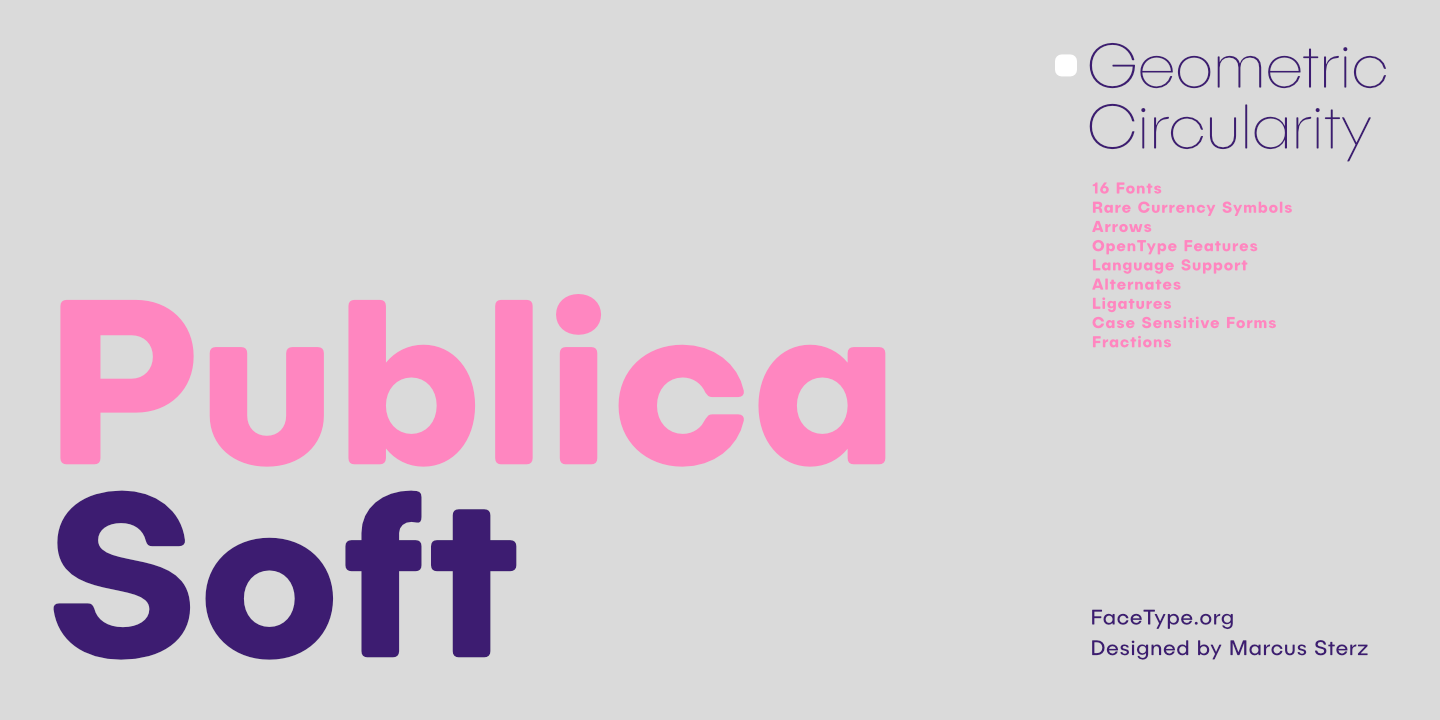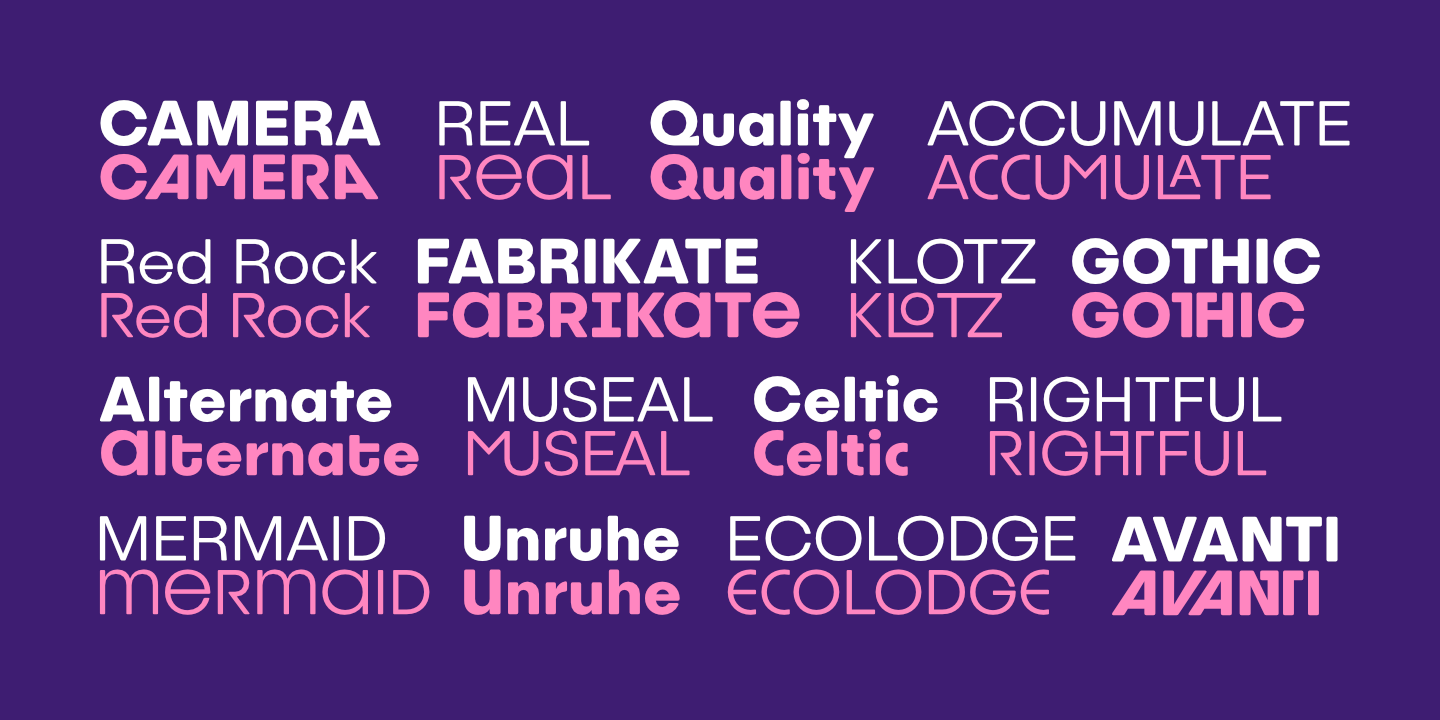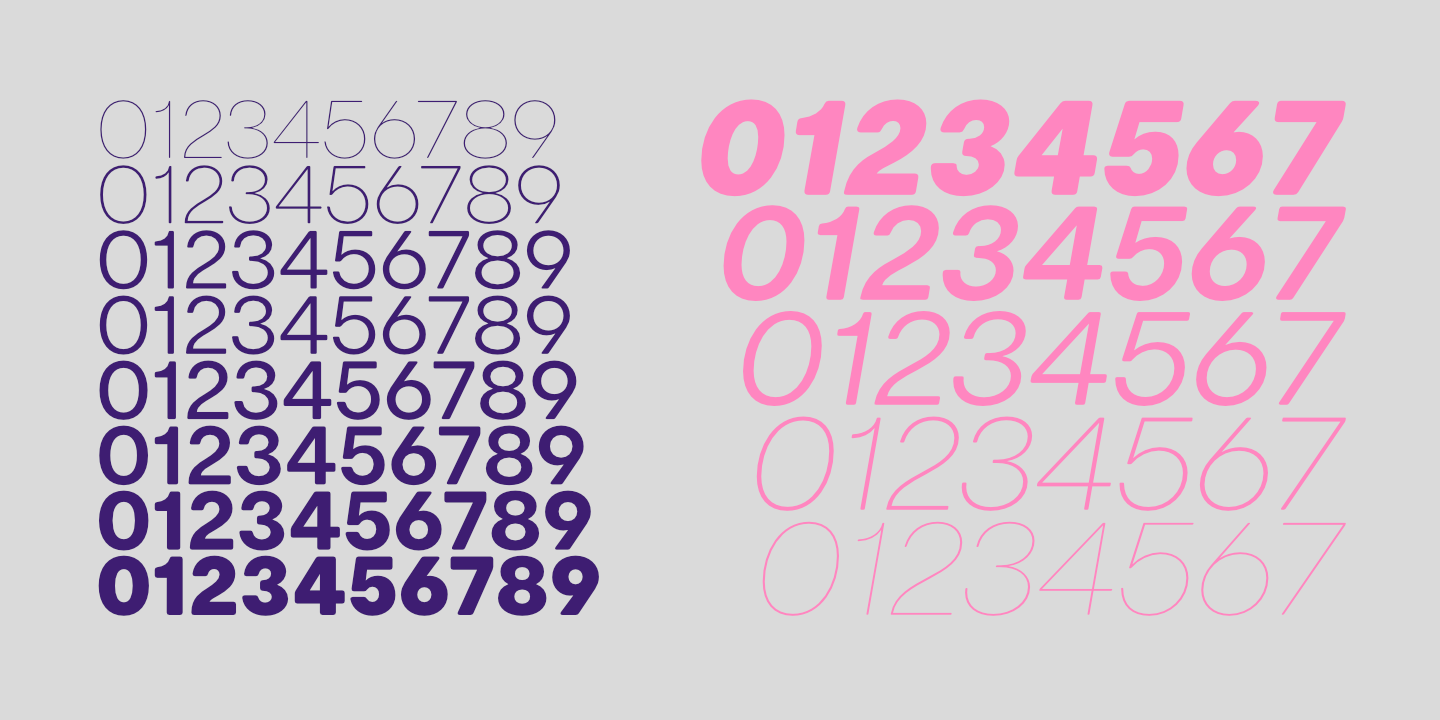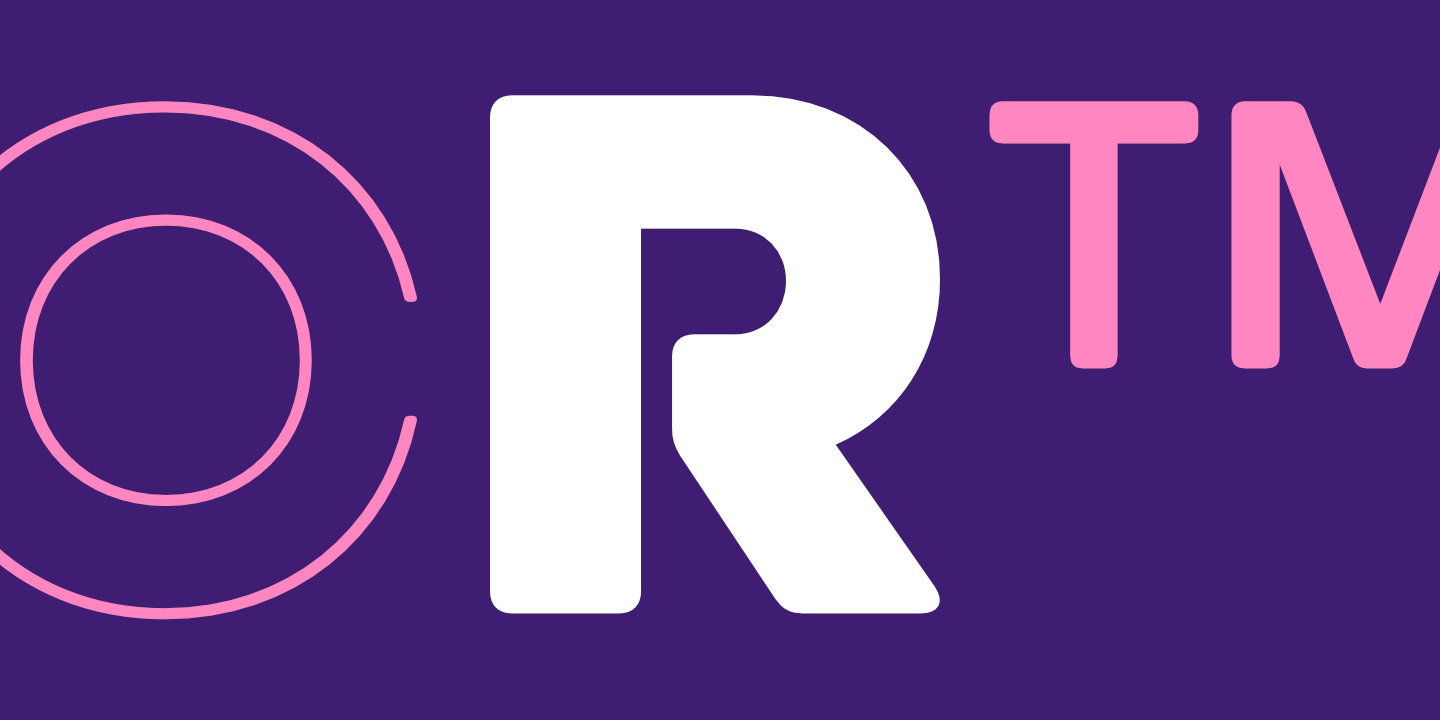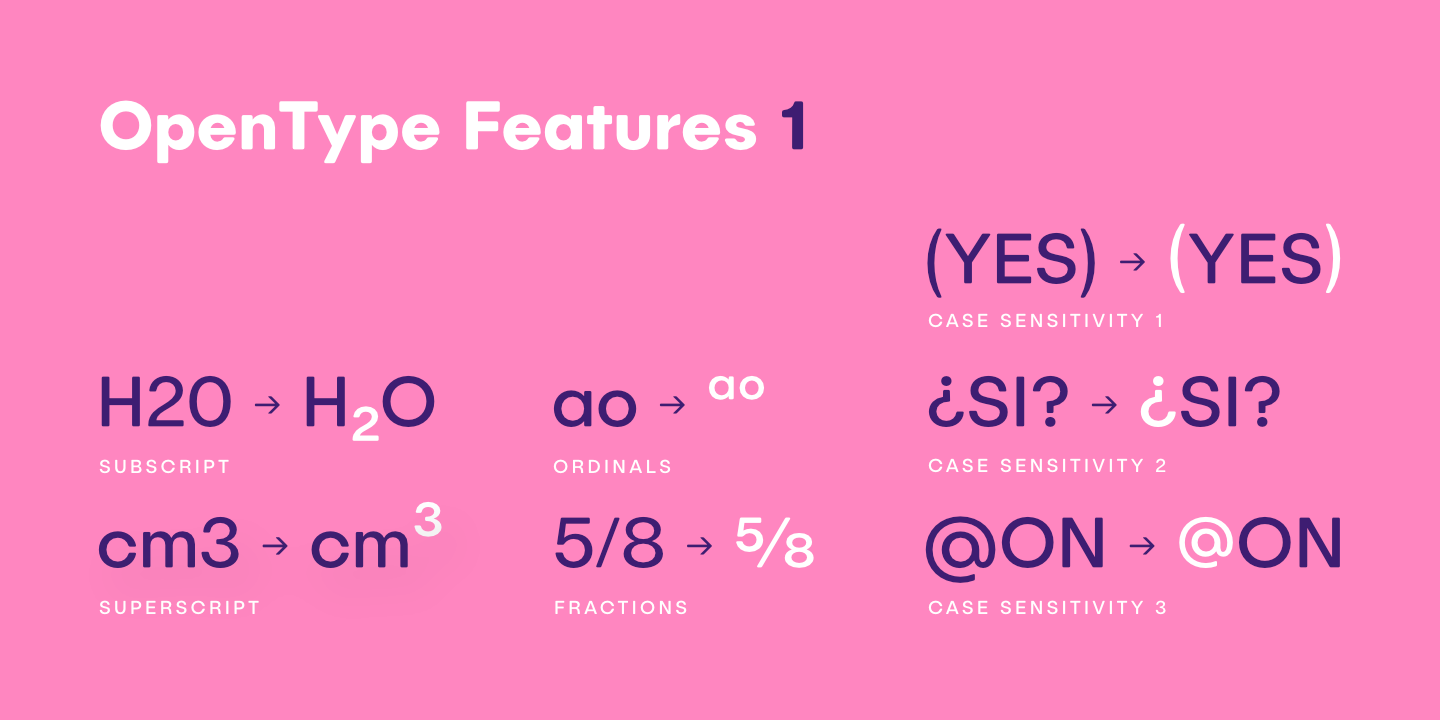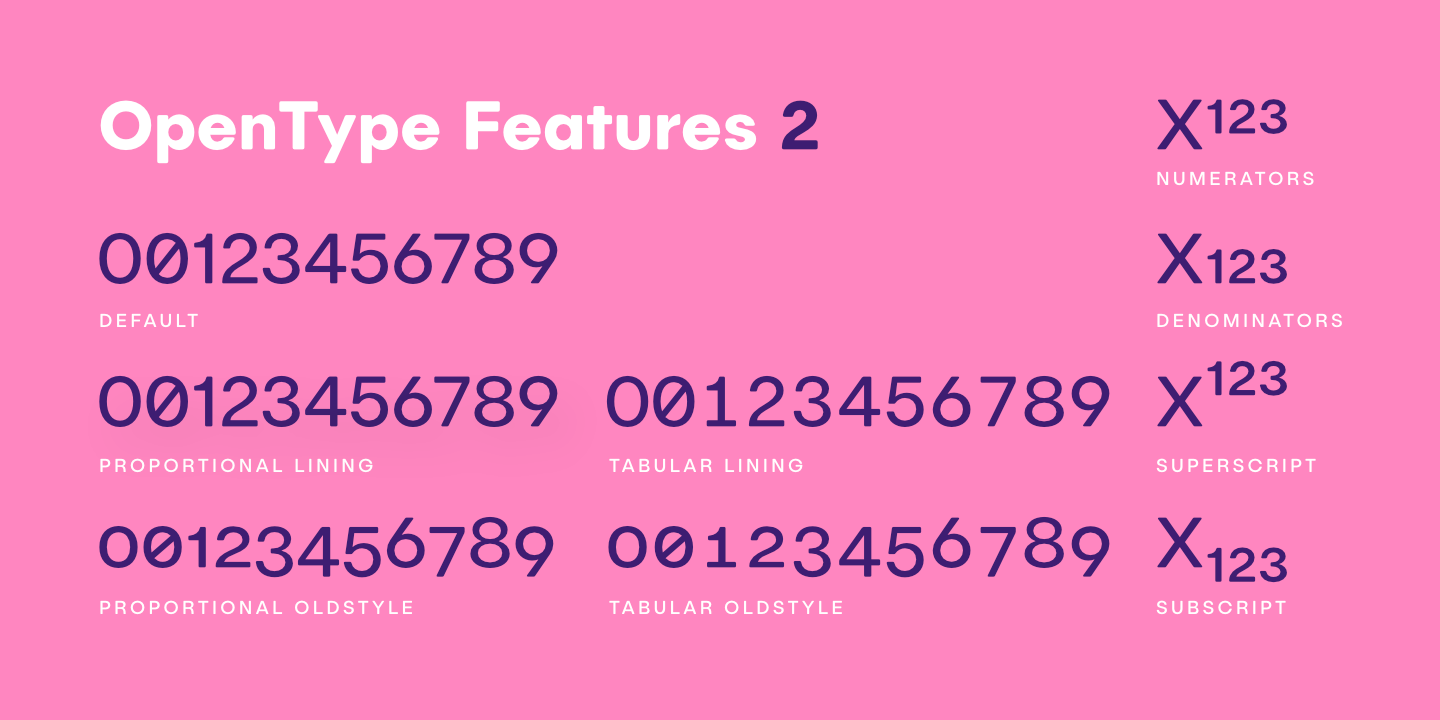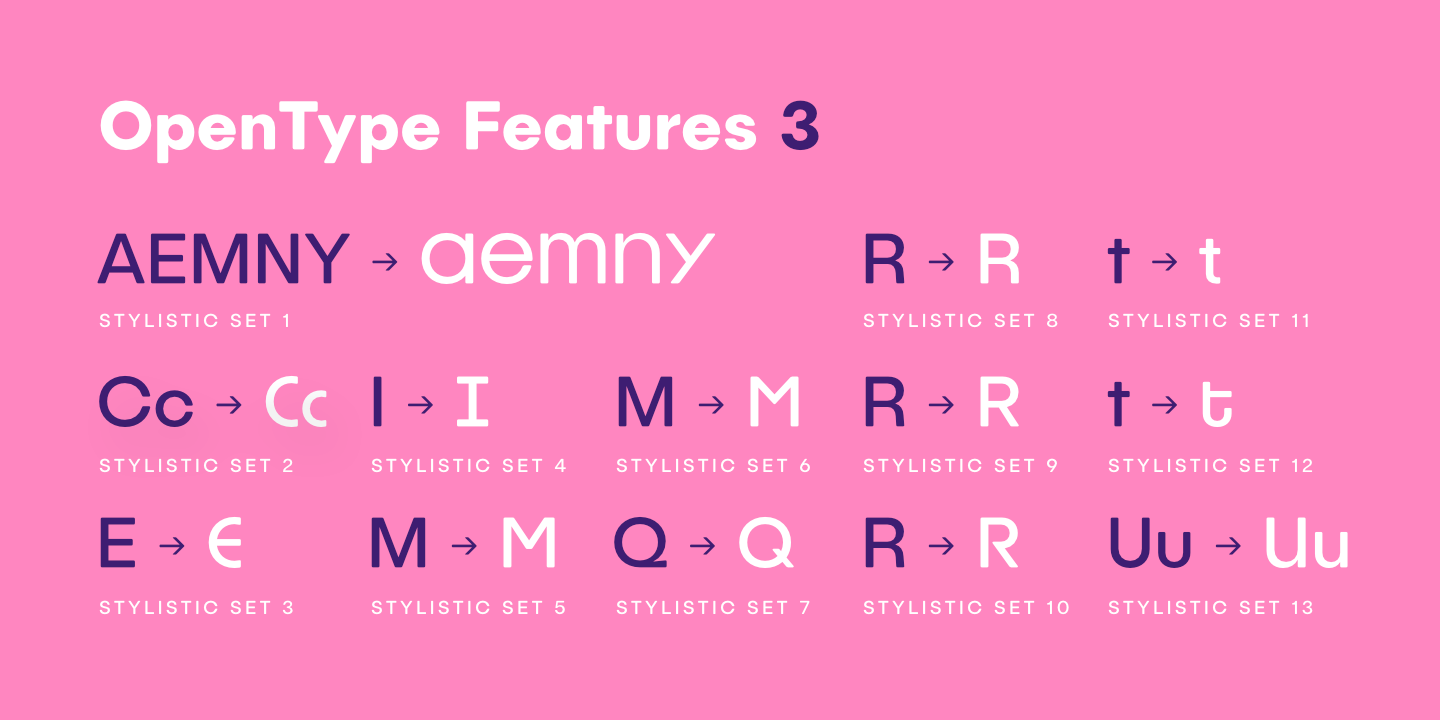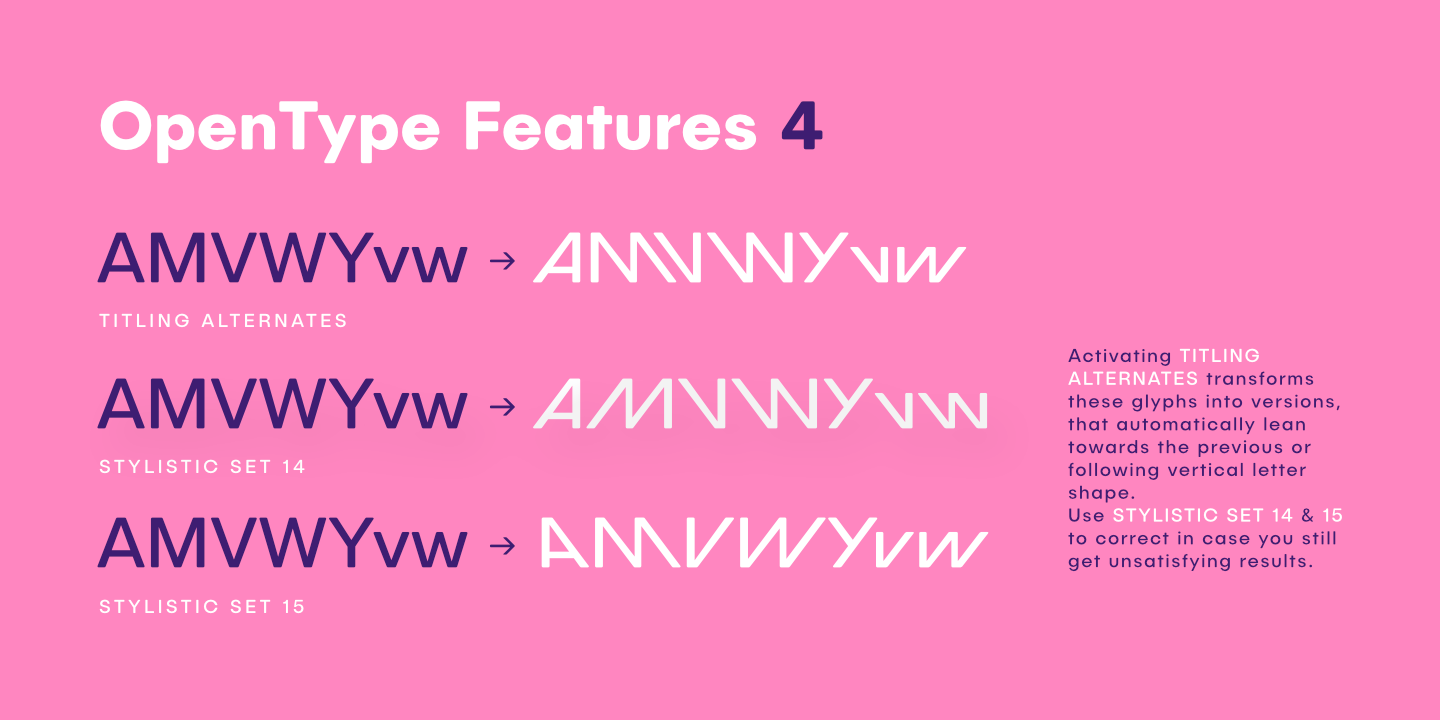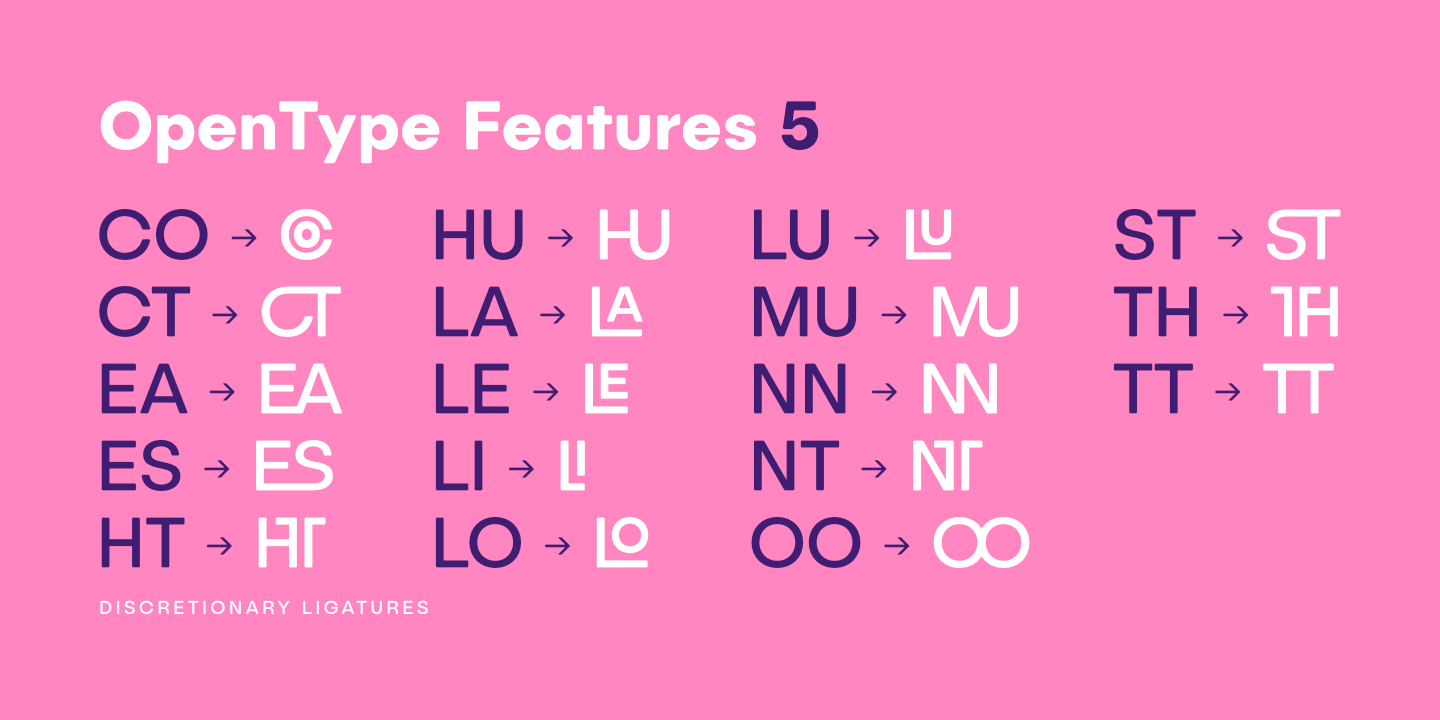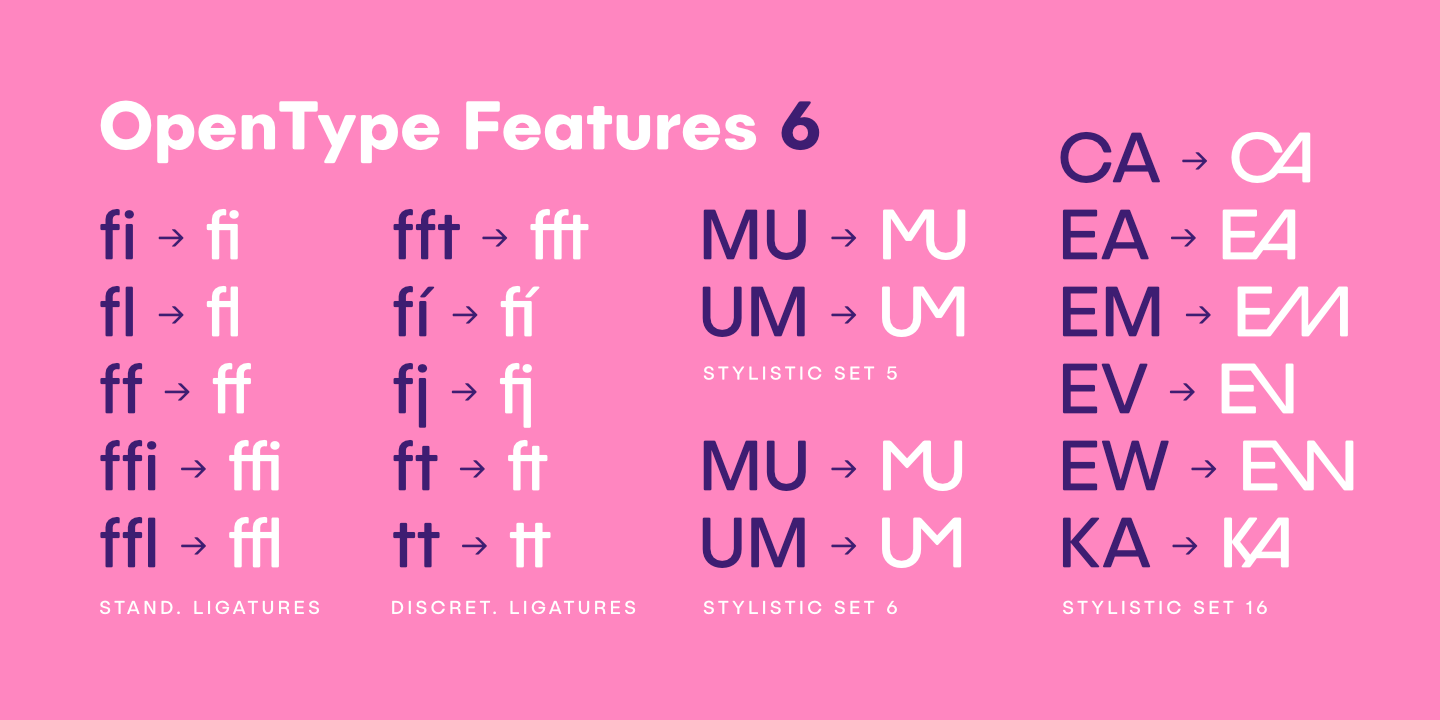
‘Publica Soft’ is the rounded version of Publica Sans. A clean geometric typeface, equipped with a variety of OpenType features to give you all you need for great typography: Alternates, arrows, rare currency symbols, case sensitive forms, various sets of figures and discretionary ligatures.
Give your typography a certain spin with the variety of alternate letters provided. You need to set prices in exotic countries? No problem: Publica Sans gives you loads of rare currency symbols. Ligatures can make your logo or headline look spicy. So there are plenty of them.